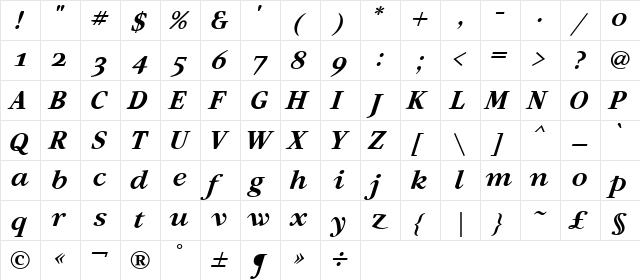
Artemius SN ItalicBold Font Preview
| Foundry | Letterhead studio especially for ArtLebedev Group. Created by Yuri Gordon |
Design Context for Artemius SN Typeface
Artemius SN offers clean, dependable letterforms without strong stylistic allegiance, making it a practical choice for designers who need flexibility. Its italic angle brings a sense of urgency and motion to the letterforms. Its bold stroke weight gives it real presence on the page.